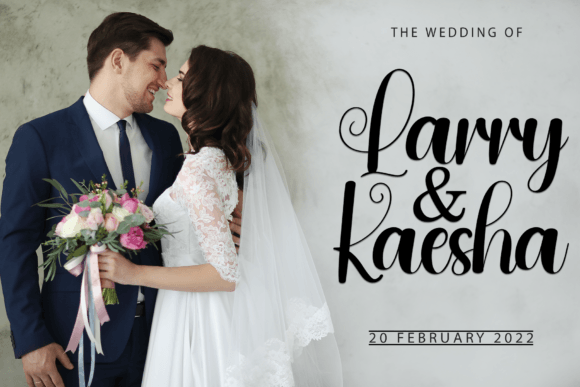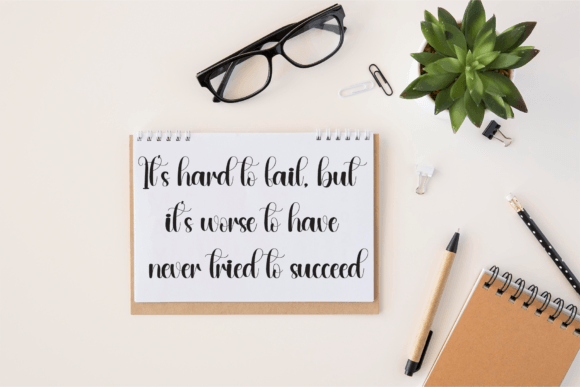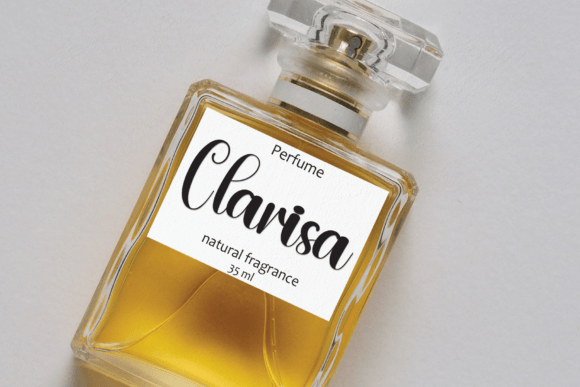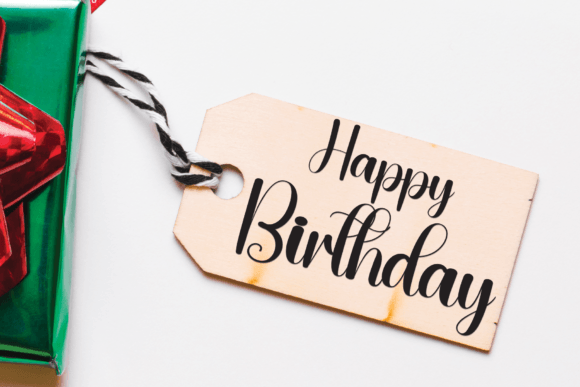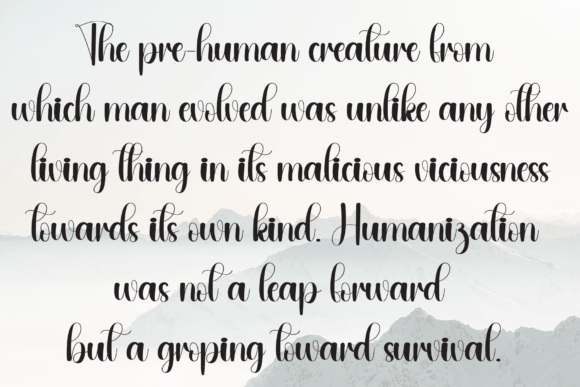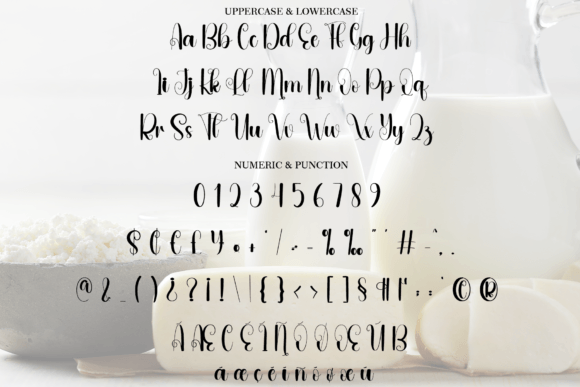
Dairy Font: The Sweet and Friendly Handwritten Display Font
Are you looking for a font that can add a fun and playful touch to your designs? Look no further than the Dairy Font! This sweet and friendly handwritten display font is perfect for creating eye-catching wedding invitations, cards, and other designs that require a personal and whimsical touch.
What is Dairy Font?
Dairy Font is a type of handwritten display font that is designed to mimic the look and feel of handwritten text. It is a digital font that can be used on a variety of platforms, including graphic design software, websites, and social media. This font is characterized by its playful and cursive style, which makes it perfect for adding a touch of personality to your designs.
Features of Dairy Font
So, what makes Dairy Font so special? Here are some of its key features:
- Cute and Fun: Dairy Font is a font that is designed to be fun and playful. It has a lighthearted and whimsical feel that makes it perfect for designs that require a personal touch.
- Handwritten Style: This font has a handwritten style that is designed to mimic the look and feel of handwritten text. It has a natural and organic feel that makes it perfect for creating designs that are personal and unique.
- Display Font: Dairy Font is a display font, which means it is designed to be used at larger font sizes. It is perfect for creating eye-catching headings, titles, and other design elements.
- Versatile: This font is versatile and can be used for a variety of design projects, including wedding invitations, cards, posters, and more.
Uses of Dairy Font
So, what can you use Dairy Font for? Here are some ideas:
- Wedding Invitations: Dairy Font is perfect for creating beautiful and unique wedding invitations. Its playful and cursive style makes it ideal for adding a personal touch to your wedding stationery.
- Cards: This font is also great for creating cards for special occasions, such as birthdays, anniversaries, and holidays.
- Posters: Dairy Font can be used to create eye-catching posters for events, promotions, and other marketing campaigns.
- Social Media Graphics: This font can be used to create engaging social media graphics, such as Facebook posts, Instagram stories, and Twitter headers.
Why Choose Dairy Font?
So, why should you choose Dairy Font for your design projects? Here are some reasons:
- Unique and Personal: Dairy Font is a unique and personal font that can add a touch of personality to your designs.
- Easy to Read: This font is easy to read, even at smaller font sizes, making it perfect for creating designs that require a lot of text.
- Customizable: Dairy Font can be customized to fit your design needs. You can adjust the font size, color, and style to create a unique look.
Tips for Using Dairy Font
Here are some tips for using Dairy Font in your design projects:
- Use it Sparingly: Dairy Font is a display font, so it’s best to use it sparingly. Use it for headings, titles, and other design elements that require a personal touch.
- Pair it with Other Fonts: This font can be paired with other fonts to create a unique and interesting design. Try pairing it with a sans-serif font for a contrasting look.
- Adjust the Font Size: Dairy Font can be used at a variety of font sizes. Experiment with different font sizes to find the one that works best for your design.
In conclusion, Dairy Font is a sweet and friendly handwritten display font that is perfect for adding a fun and playful touch to your designs. Its playful and cursive style makes it ideal for creating eye-catching wedding invitations, cards, and other designs that require a personal touch. With its versatility, customizability, and affordability, Dairy Font is a great choice for designers and crafters looking to add a unique and personal touch to their designs.